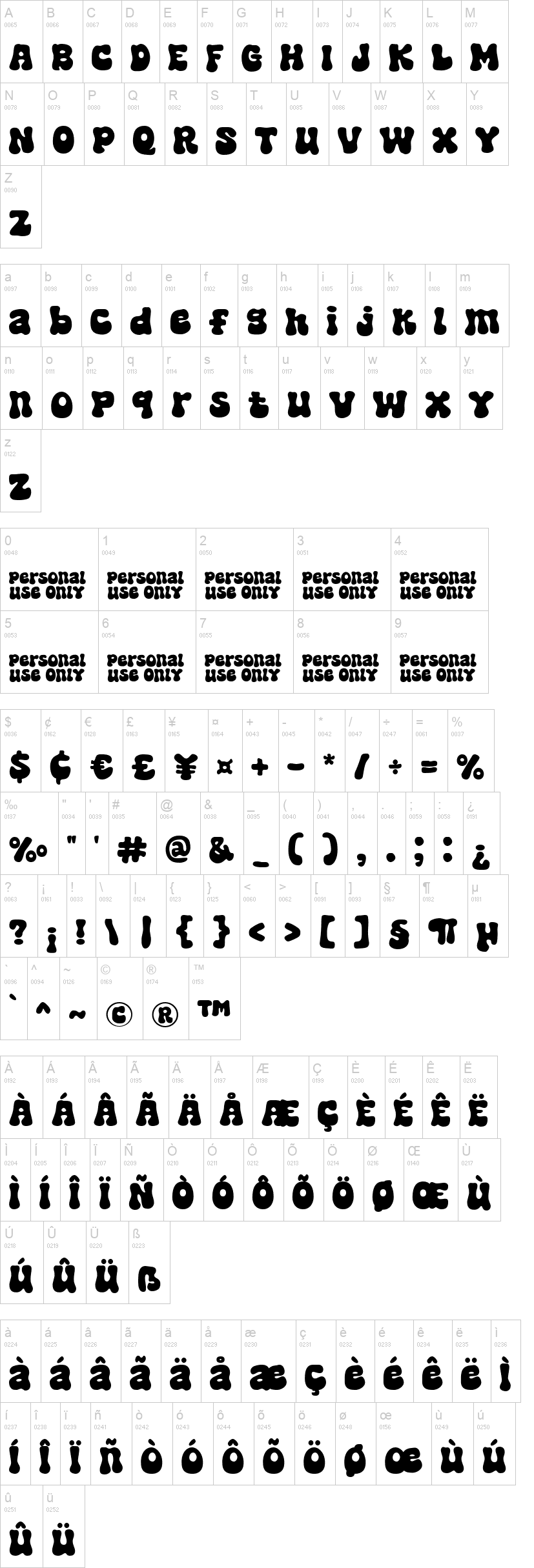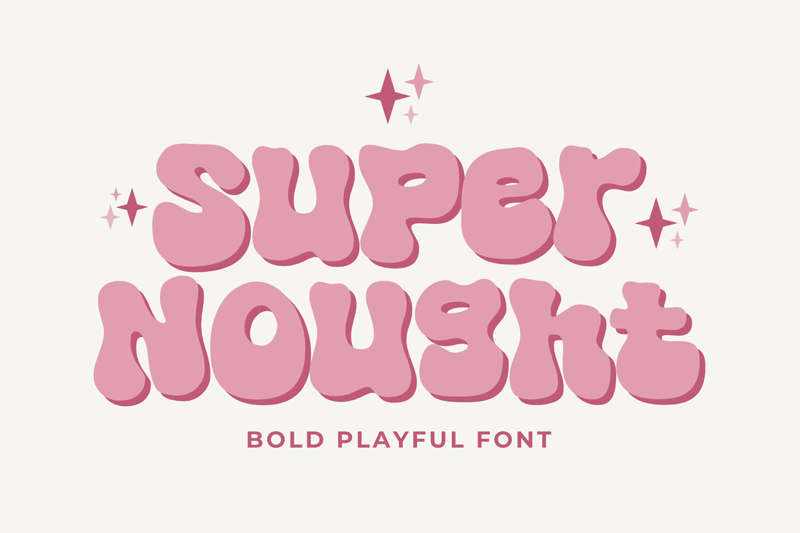
Super Nought is a bold, playful font that is perfect for headlines, logos, and other creative projects. It is a versatile font that can be used for a variety of purposes, from serious to fun.